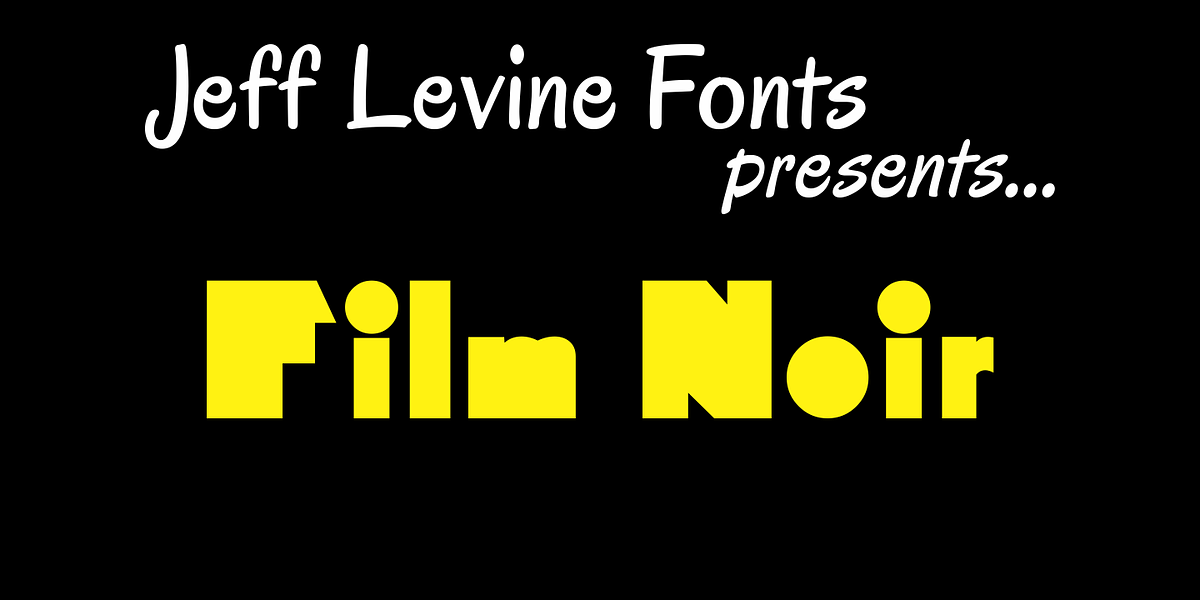
Film Noir JNL
Film Noir JNL is a classic Art Deco Alphabet from the brush of the late master sign painter Alf R. Becker, and appeared in /Signs of the Times/ Magazine.